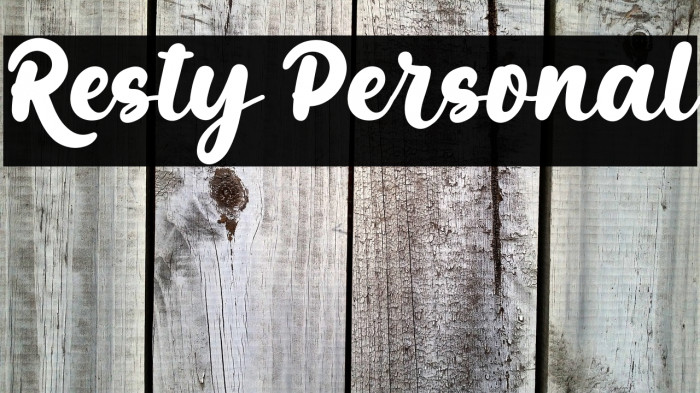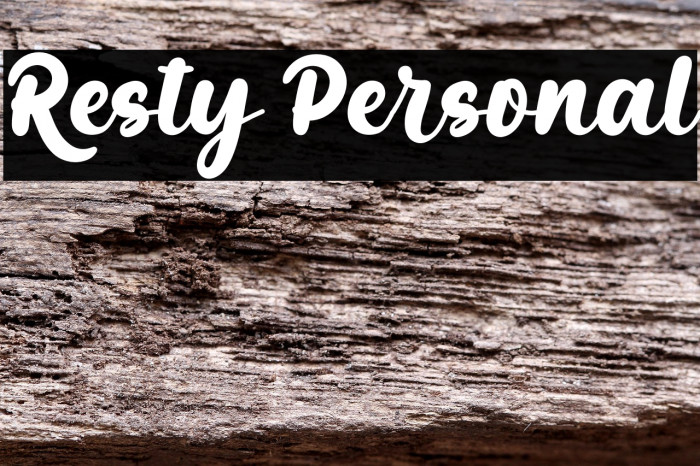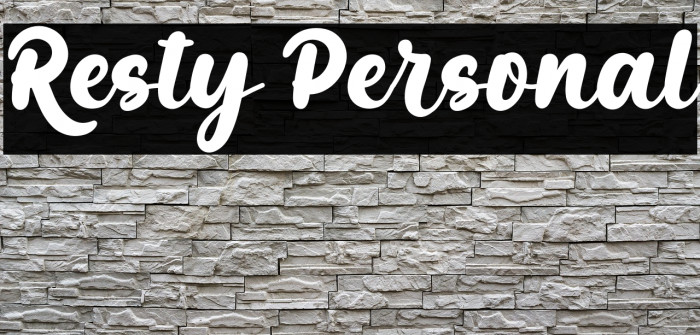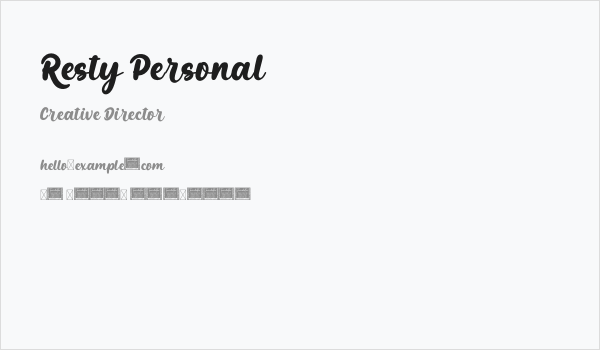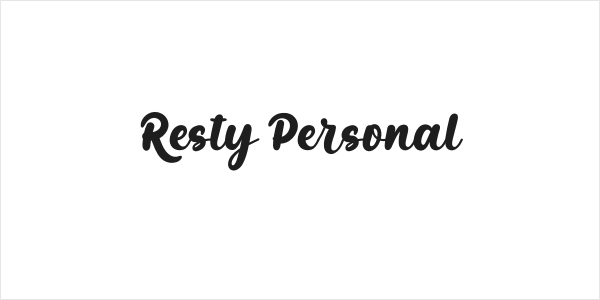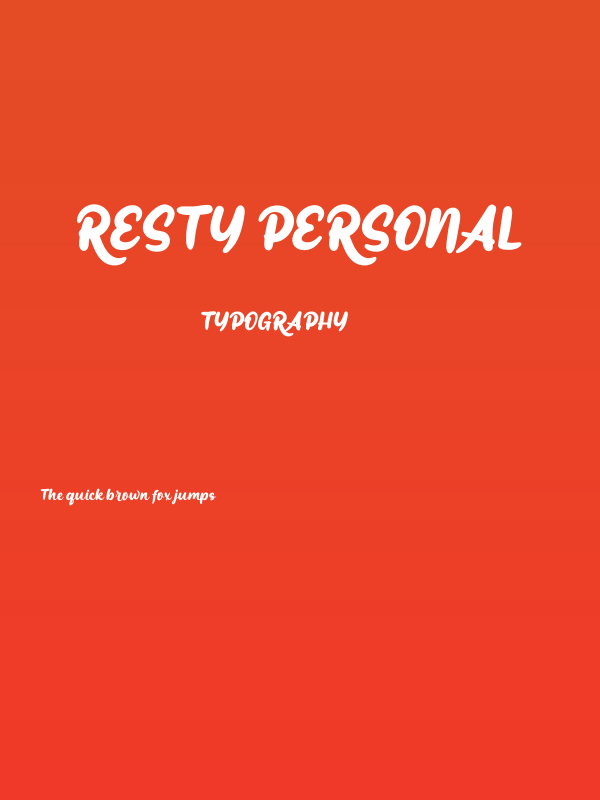
Resty Personal Font
Resty Personal Description
This font features a bold and flowing script style, characterized by its smooth, connected strokes and elegant curves. The uppercase letters are slightly larger and more pronounced, while the lowercase letters maintain a consistent flow, enhancing readability. The font exudes a sense of modern elegance, making it suitable for a variety of design applications. Its bold weight and medium contrast between thick and thin strokes add to its visual appeal, making it stand out in any design context.